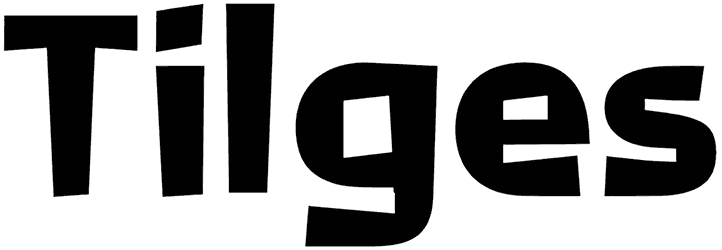
Tilges Font
Today, we’re going to show you what a blessing it is to have such a fun island font at hand for all your summer projects from jungle camping posters to club party banners, and all kinds of vacation designs.
The fact that all the letters are somehow based on square shapes delivers a geometric font that unlike the rest of them looks very adorable and amusing. Strange, isn’t it? But it’s exactly this paradoxical design that sets your artwork apart.